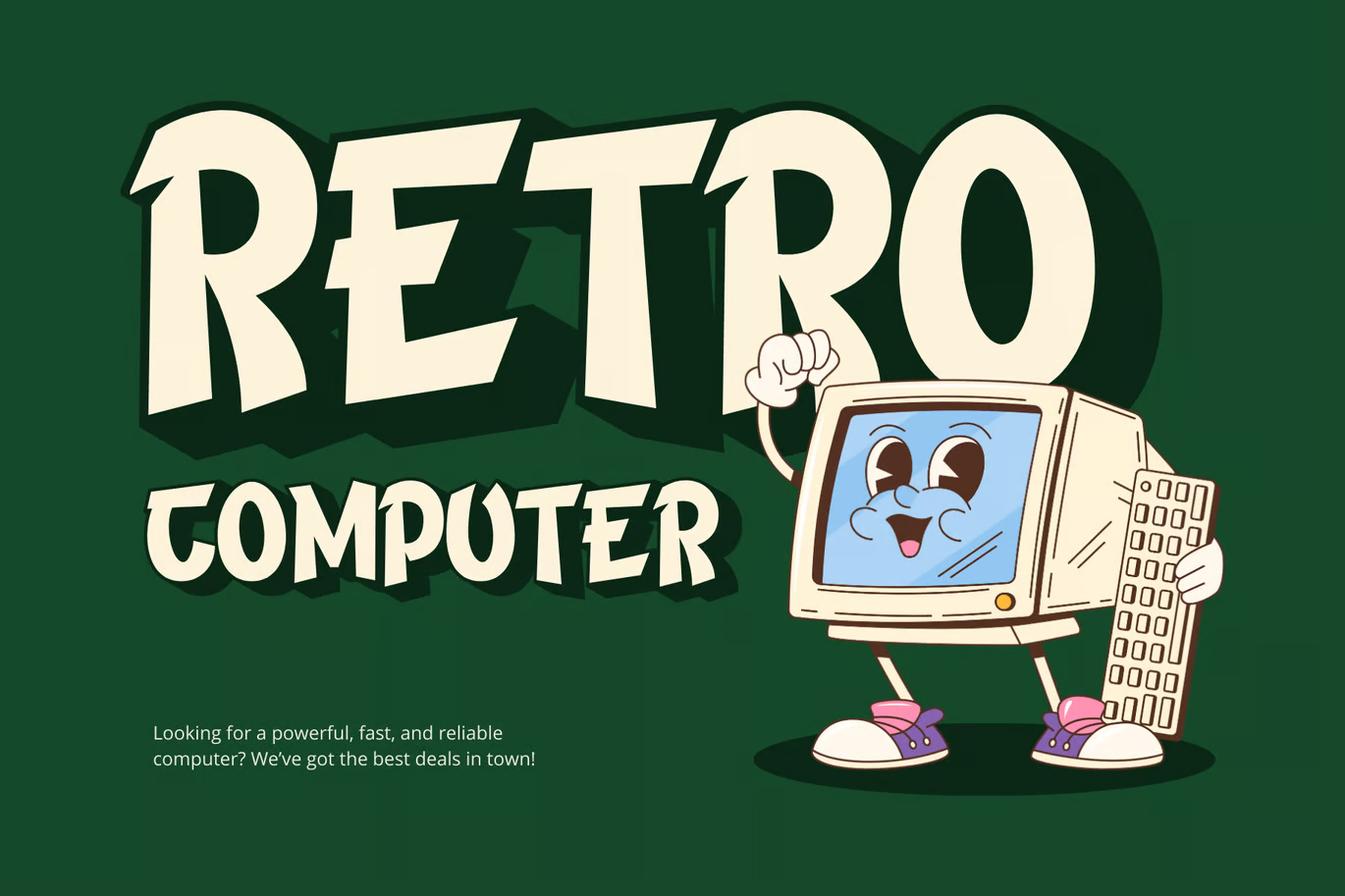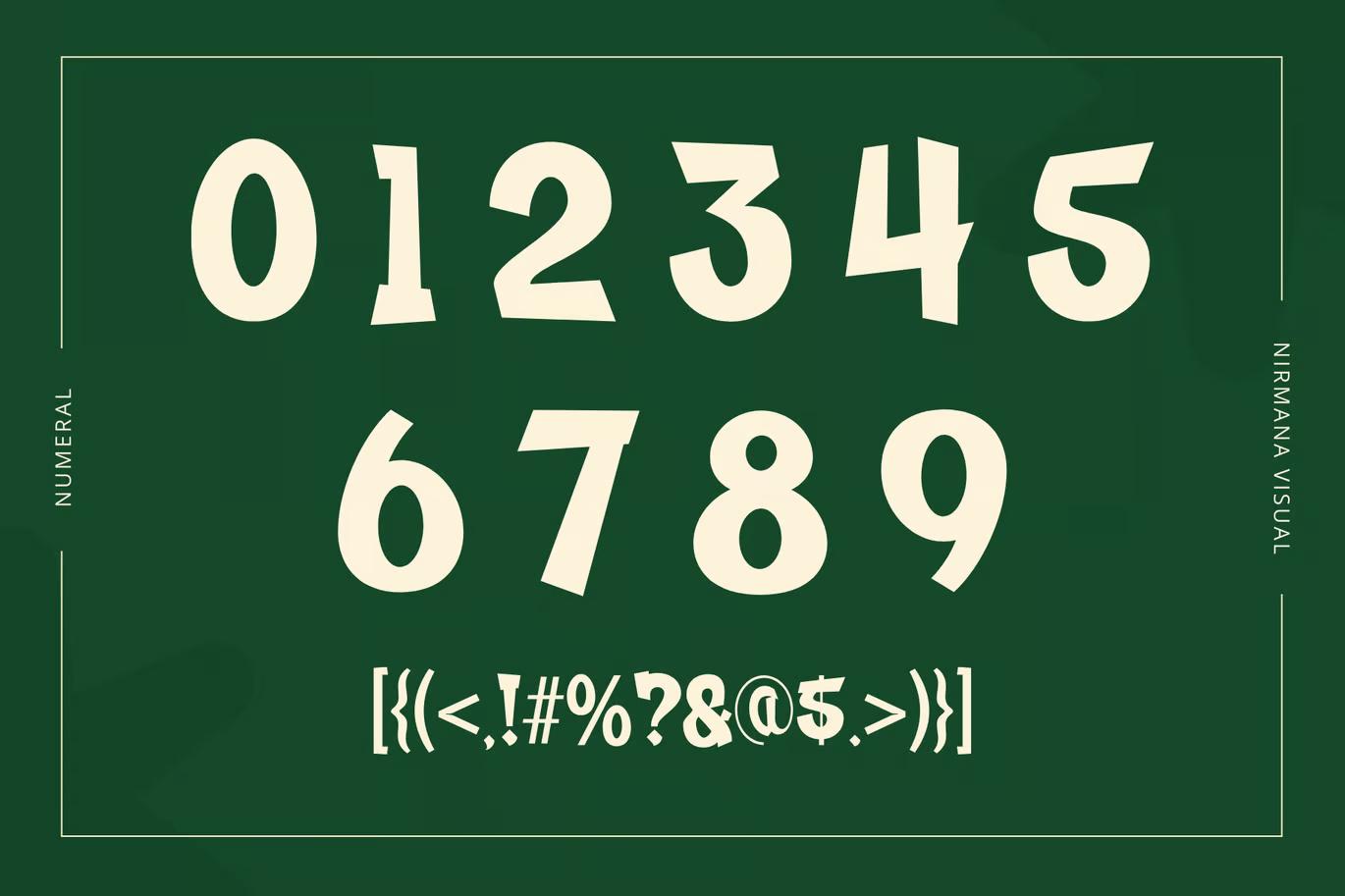
Fazie Retro Logo Font
Fazie Retro – A Timeless Retro Logo Font
Fazie Retro brings stunning typographic harmony to a wide range of design projects, including logos & branding, social media posts, advertisements, and product designs. Its vintage charm adds a unique touch to any creative work.
Fazie Retro Sans-Serif Logo Font
Fazie Retro Logo Font